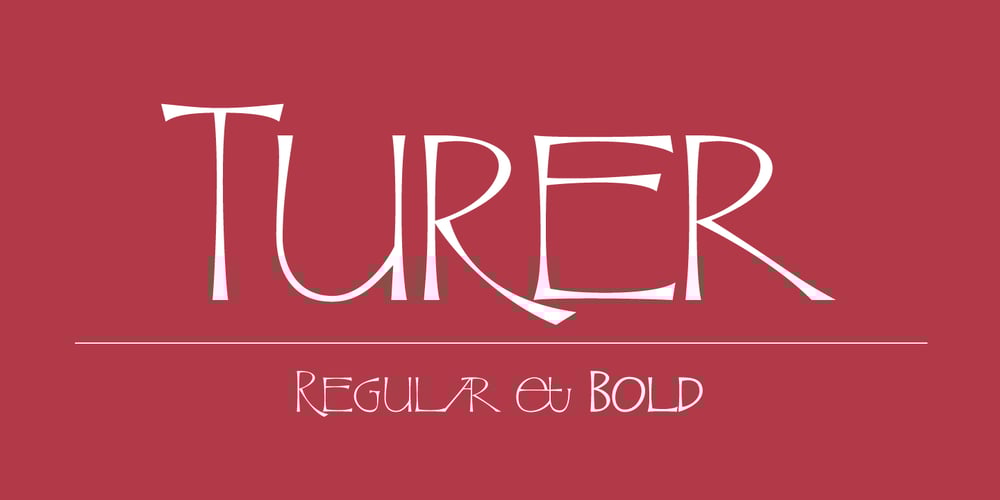
Turer
Turer font
Turer Font Family was designed by Carine de Wandeleer and published by Eurotypo. Turer contains 2 styles and family package options. Turer is a display font with a strong artistic personality. It is inspired by some works of Rudolph Koch (1876 – 1934) such as Wallau, Original Neuland or Koch Antiqua. It is characterised by its vertical strokes that thicken towards the ends, which hints at a serif without actually having it. Turer is composed of capitals; the lower case being small caps. It also has a great set of ligatures. Presented in two weight: Regular and Bold.